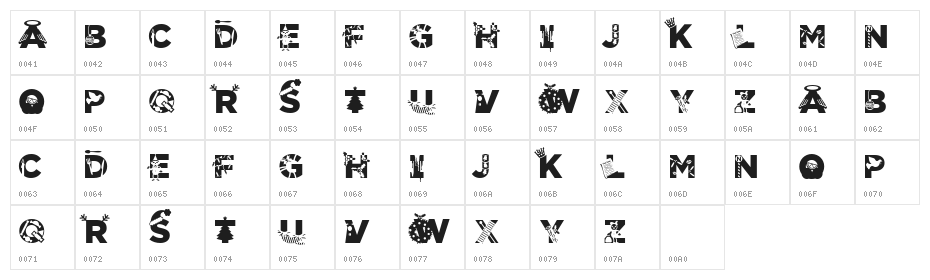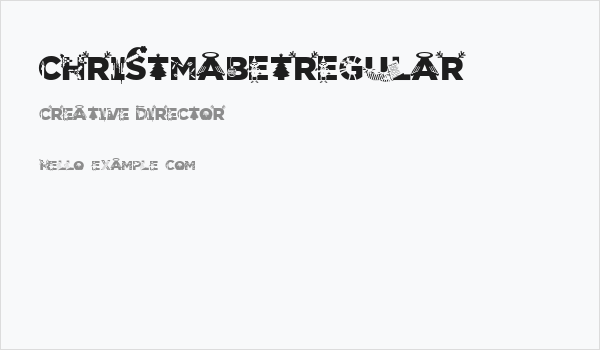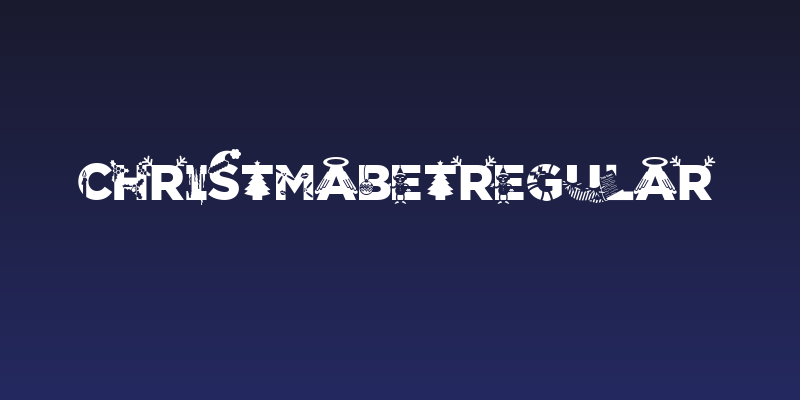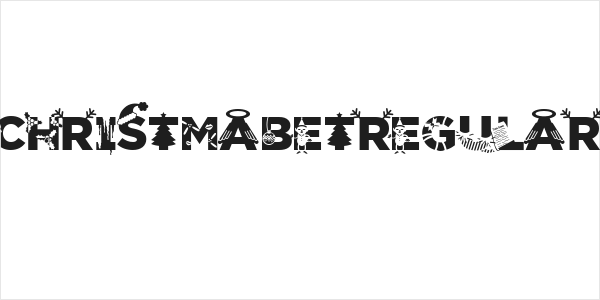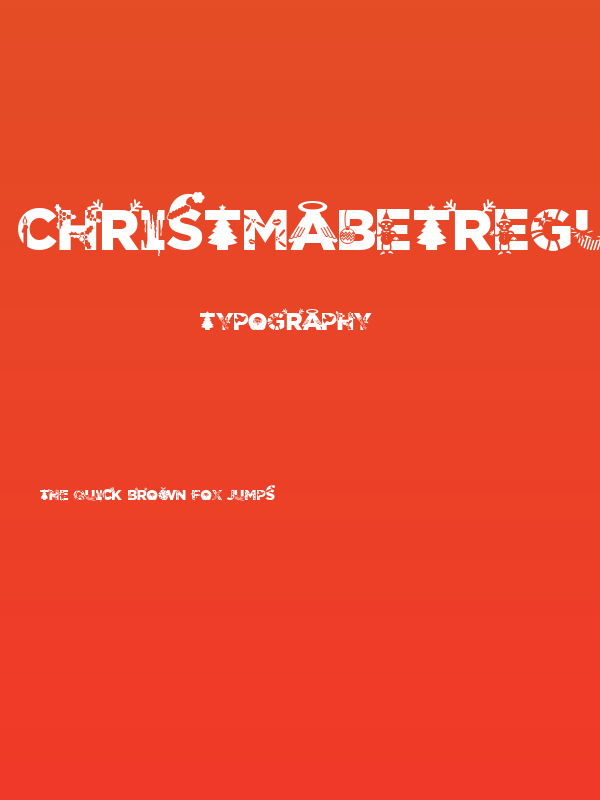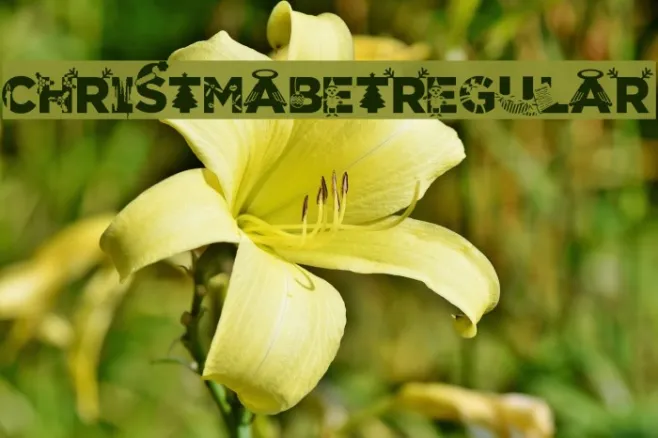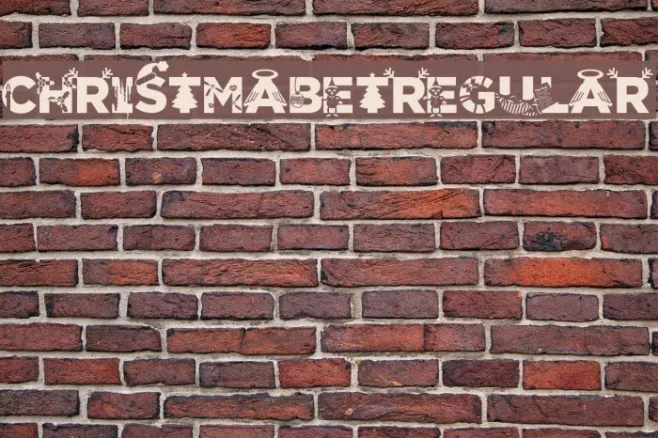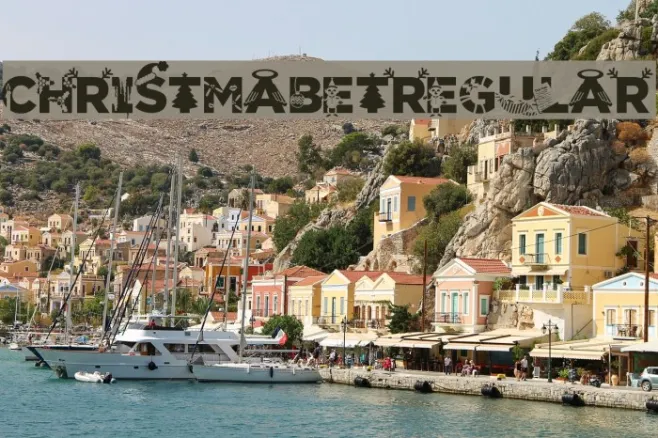
ChristmabetRegular Font
ChristmabetRegular Description
This festive font is a playful and decorative typeface that embodies the spirit of the holiday season. Each letter is uniquely designed with Christmas-themed elements such as snowflakes, candy canes, Christmas trees, and ornaments, creating a whimsical and joyful appearance. The uppercase letters are bold and eye-catching, making them ideal for holiday-themed projects. The intricate details within each character add a layer of complexity and charm, making it perfect for capturing the festive atmosphere. This font is not only visually appealing but also versatile, suitable for various creative applications during the holiday season.
| Use Case | Headlines, Logos, Decorative text |
| Proposed Projects | Ideal for holiday greeting cards, festive banners, Christmas party invitations, and seasonal advertisements. |